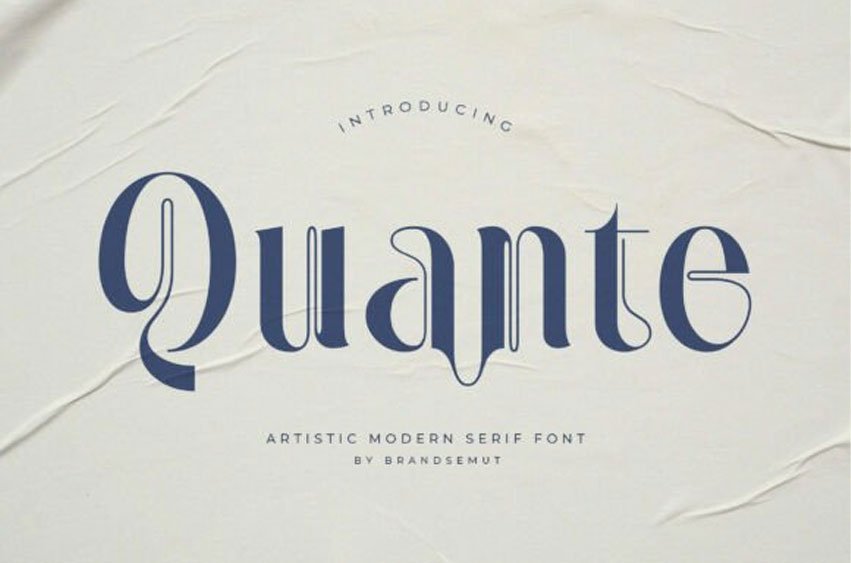
Quante Font is a refined and artistic modern display serif typeface that masterfully balances classical elegance with contemporary experimentation. Designed with exquisite attention to detail, Quante’s letterforms are enriched by stylish curves, sharp cuts, and decorative terminals that infuse every glyph with unique flair. It embraces the timeless sophistication of serif structure while introducing fresh, expressive elements that make it ideal for visual storytelling across premium and artistic design projects.
With its graceful contrasts and modern silhouette, Quante typeface excels in both digital and print applications, seamlessly adapting to branding systems, editorial headlines, fashion lookbooks, boutique packaging, social media graphics, and more. It includes a full character set with uppercase, lowercase, numerals, punctuation, and is enhanced by beautifully crafted stylistic alternates and ligatures. The font supports Latin-based multilingual characters and is available in OTF and TTF formats for smooth integration into various creative workflows.
Quante font delivers a distinctive yet versatile voice—equally suited for luxury branding, creative invitations, and high-impact editorial work. Its blend of structure and artistry brings personality, elegance, and originality to every typographic composition, making it a valuable tool for designers seeking to leave a lasting impression.